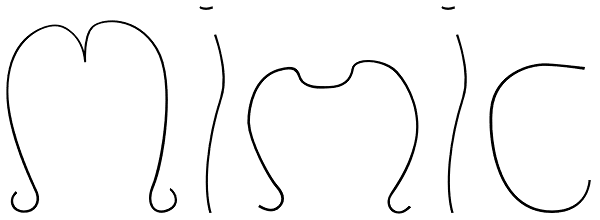
Mimic
Mimic is a font family of several typefaces, that are based upon the physical structure of the mouth, depicted while speaking of corresponding letters occurred. It is primarily created as an accidental font family, and thus contains the very basic...